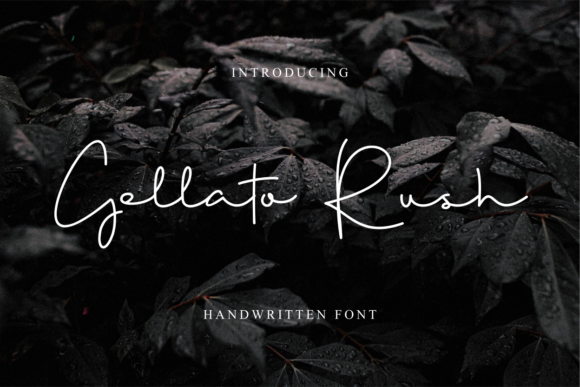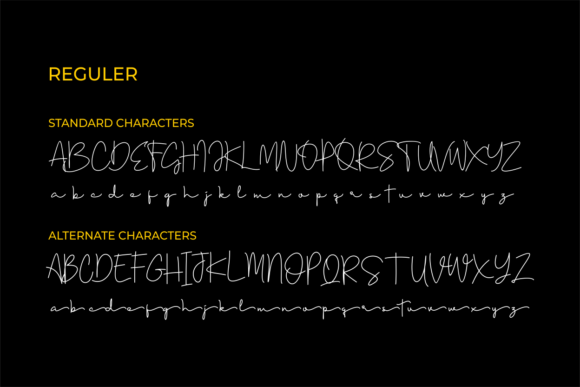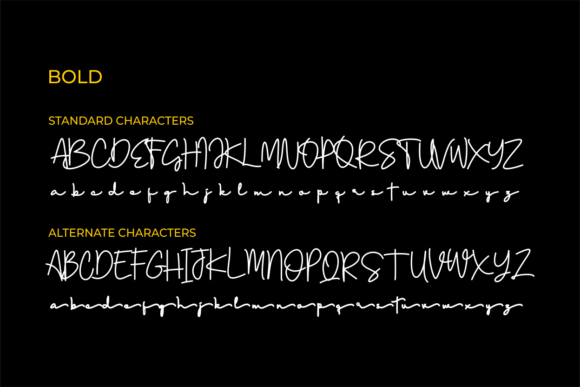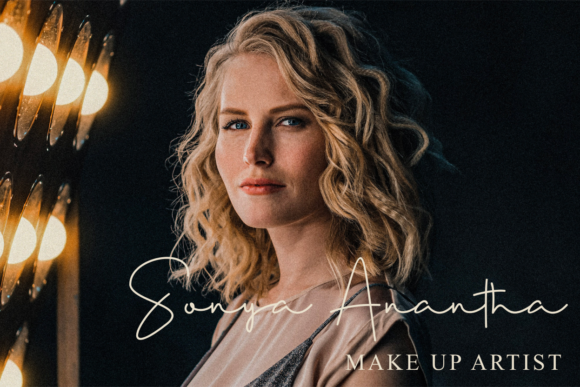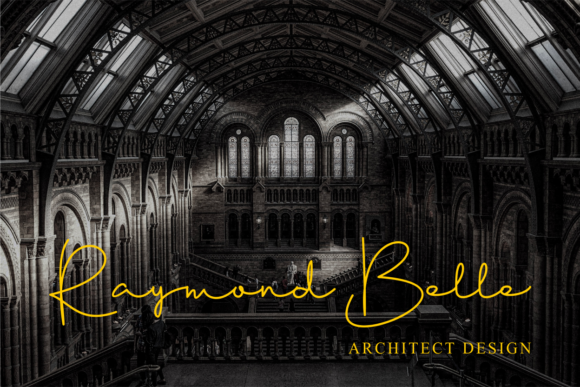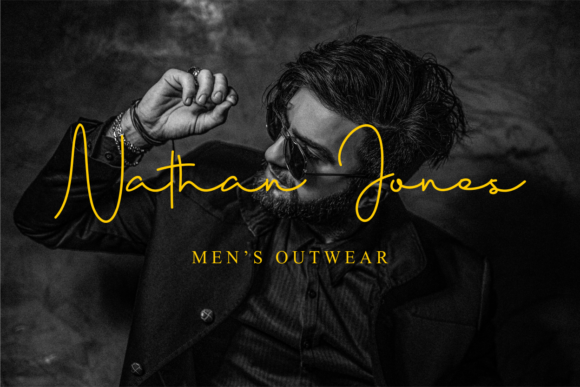
The Perfect Scoop for Your Design Projects
Have you ever sat down with a blank page, a cup of coffee, and a blank mind, only to be struck by a burst of creativity? That’s exactly what happened to me when I stumbled upon the Gellato Rush Font. Its unique, handwritten feel immediately caught my attention and inspired me to think outside the box. As designers, we’re always on the lookout for that special something that can elevate our work and make it truly stand out.
Gellato Rush Font is an elegant and fun handwritten font that’s perfect for adding a cool vibe to your designs. Whether you’re working on a branding project, a social media campaign, or a simple poster, this font is sure to bring a smile to your face and a touch of personality to your work. And the best part? It’s incredibly versatile, making it a valuable addition to any designer’s toolkit.
Gelato Rush Font Key Features
- Unique Characteristics: This font features a unique, hand-drawn aesthetic with intricate details and subtle texture, giving it a distinctive and eye-catching look.
Gellato Rush Font Review
I’ve had the chance to work with the Gellato Rush font, and here’s my honest review.
- The Gellato Rush font is highly customizable, allowing you to adjust the font size, color, and style to fit your needs.
- The font is well-suited for modern designs, particularly those related to food, fashion, or travel.
- The font’s unique style, with its mix of cursive and sans-serif elements, can add a touch of sophistication to your designs.
- The font may not be ideal for formal or professional designs, as its playful style may come across as too casual.
The Gellato Rush font is a great choice for designers who want to add a touch of modernity and playfulness to their designs. While it may have some limitations, its customization options and unique style make it a valuable addition to any designer’s toolkit.
For the best results, pair Gellato Rush Font with bright and playful colors. It’s perfect for creating eye-catching social media graphics, promotional materials, or children’s party invitations. Experiment with different font sizes and styles to add visual interest.